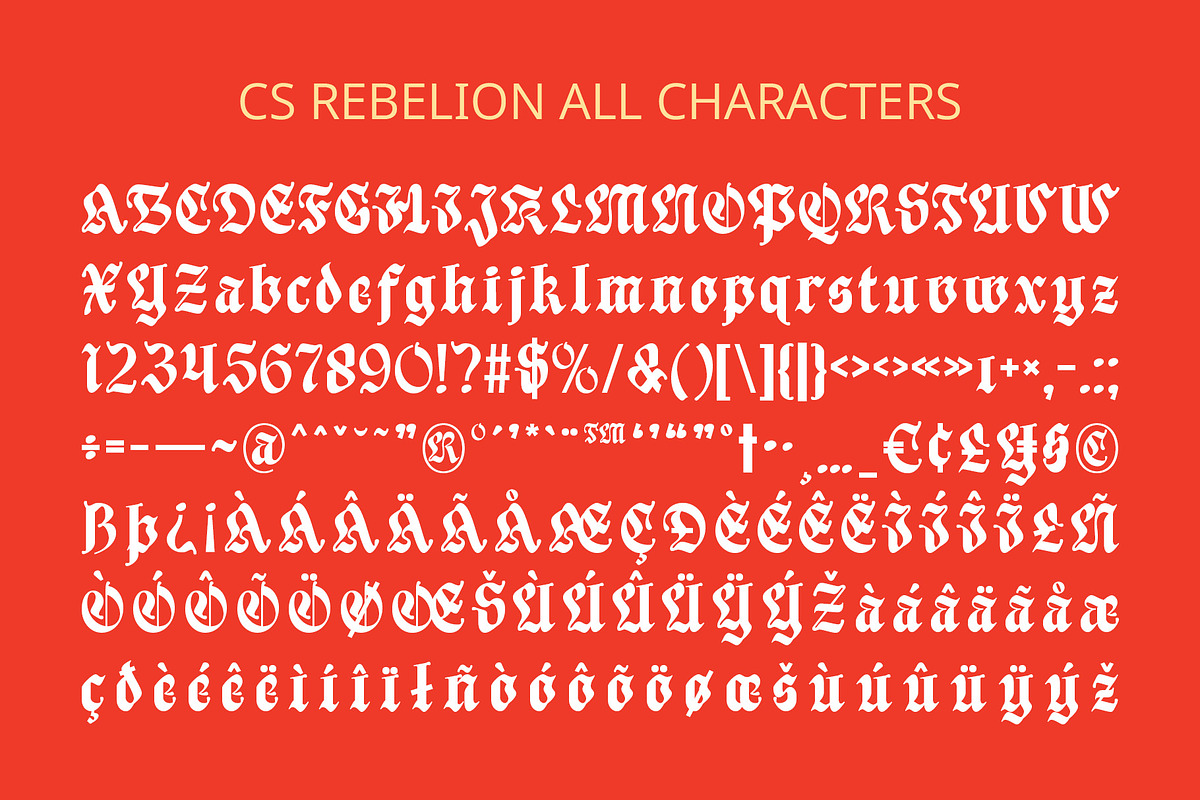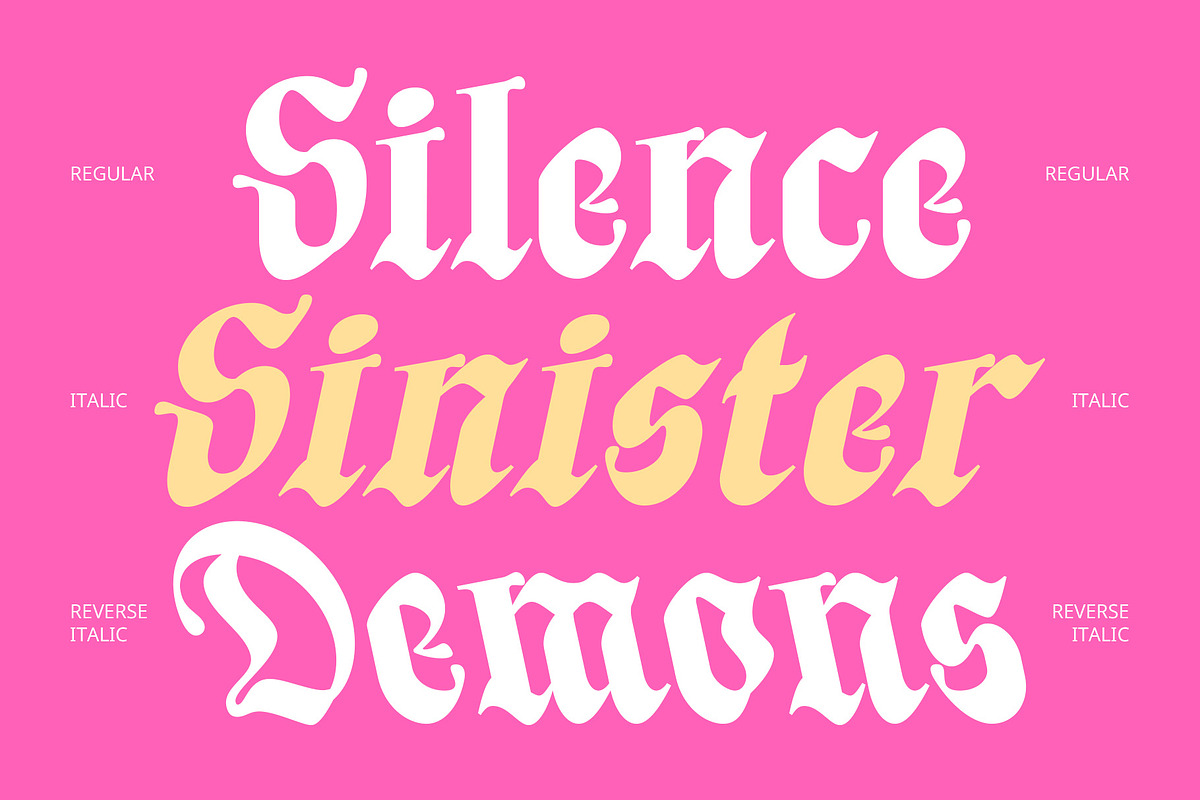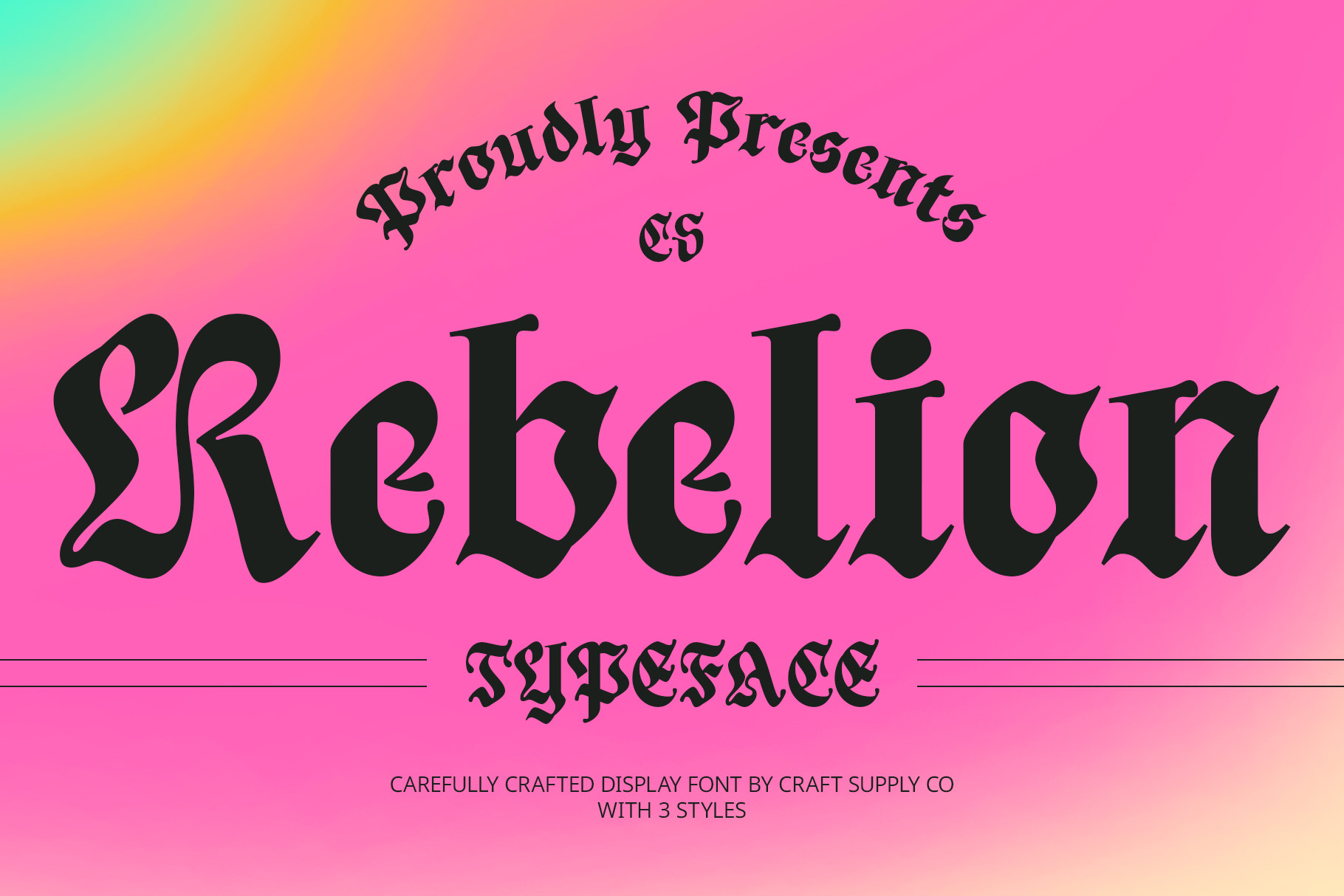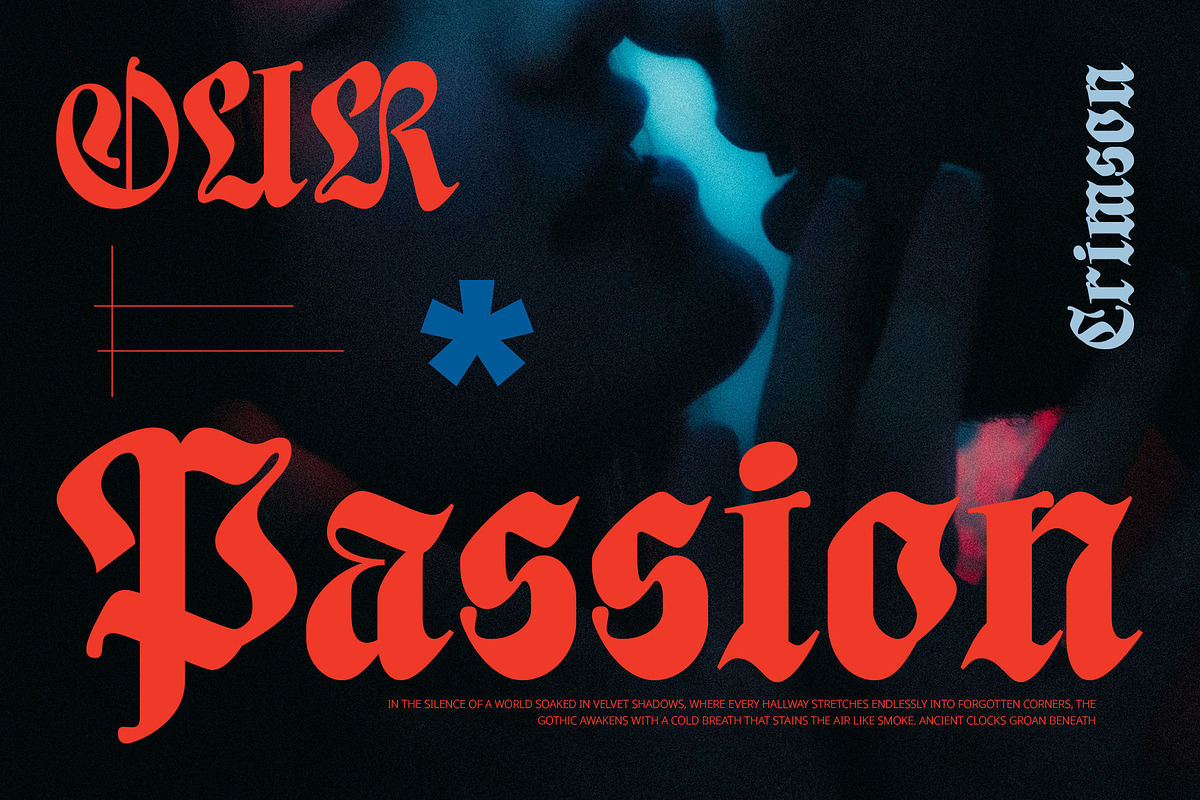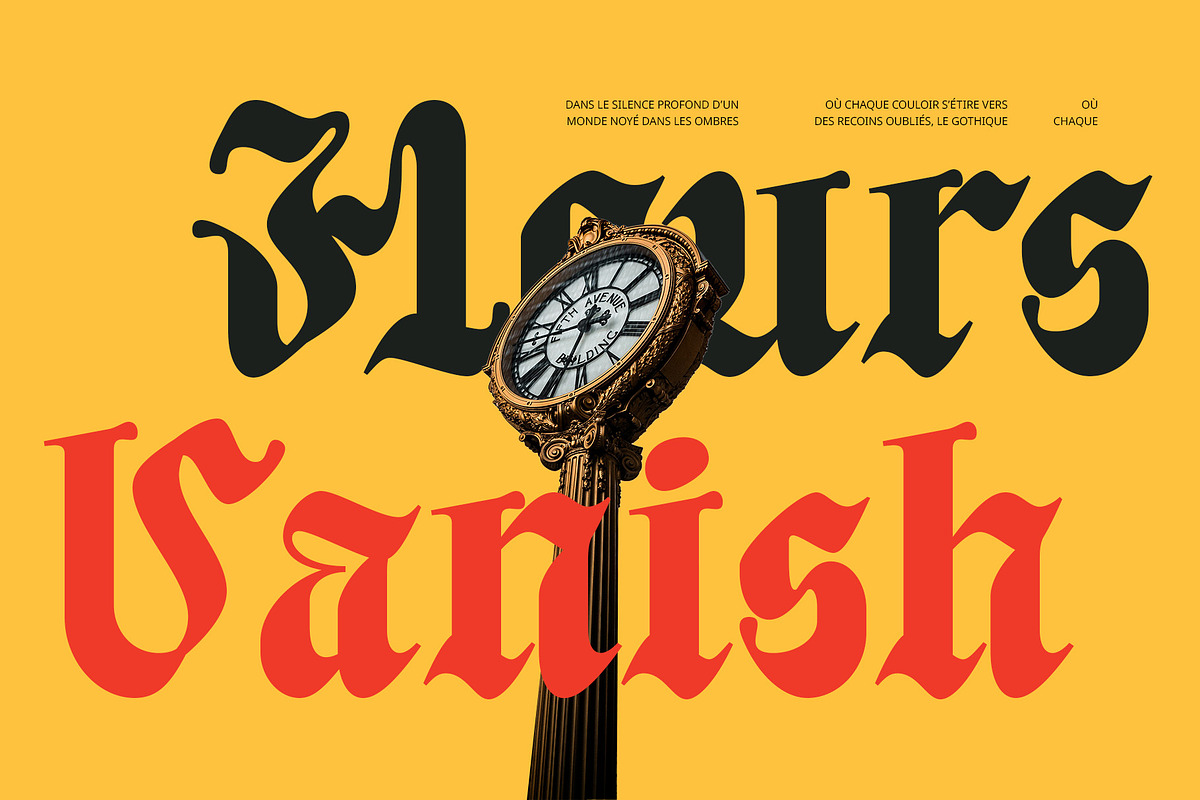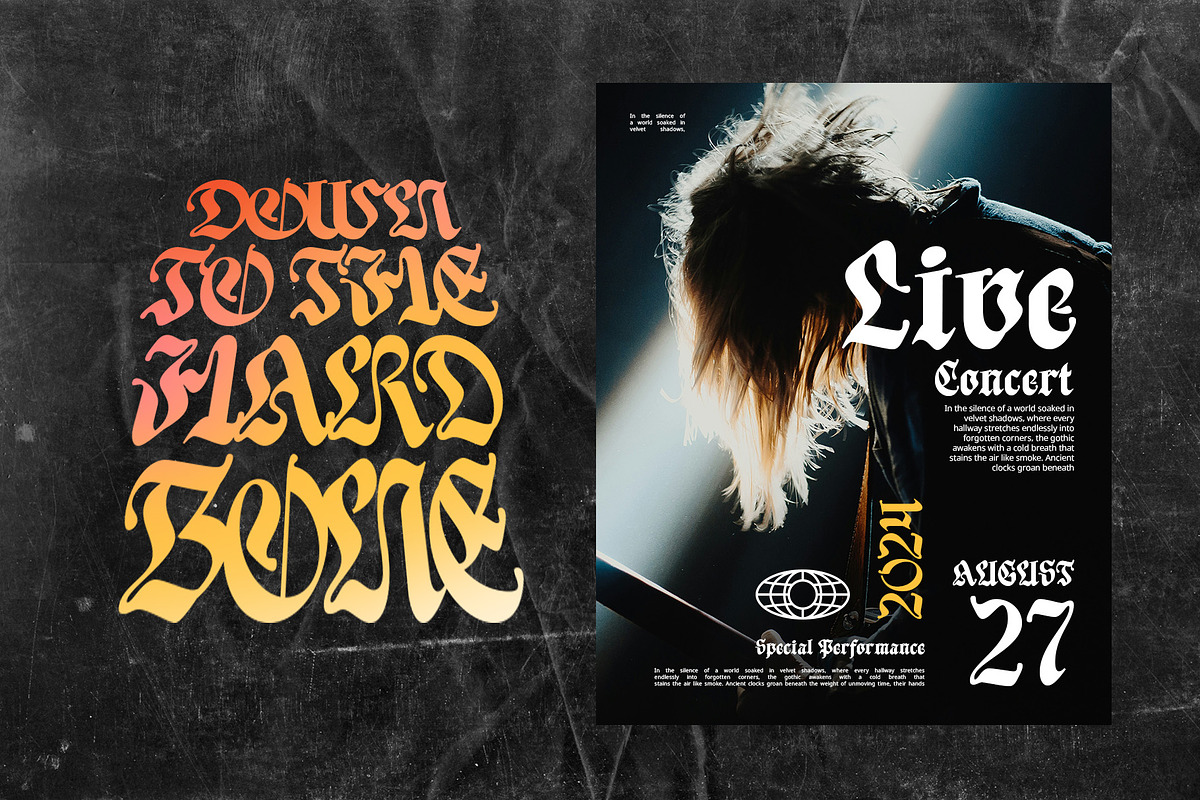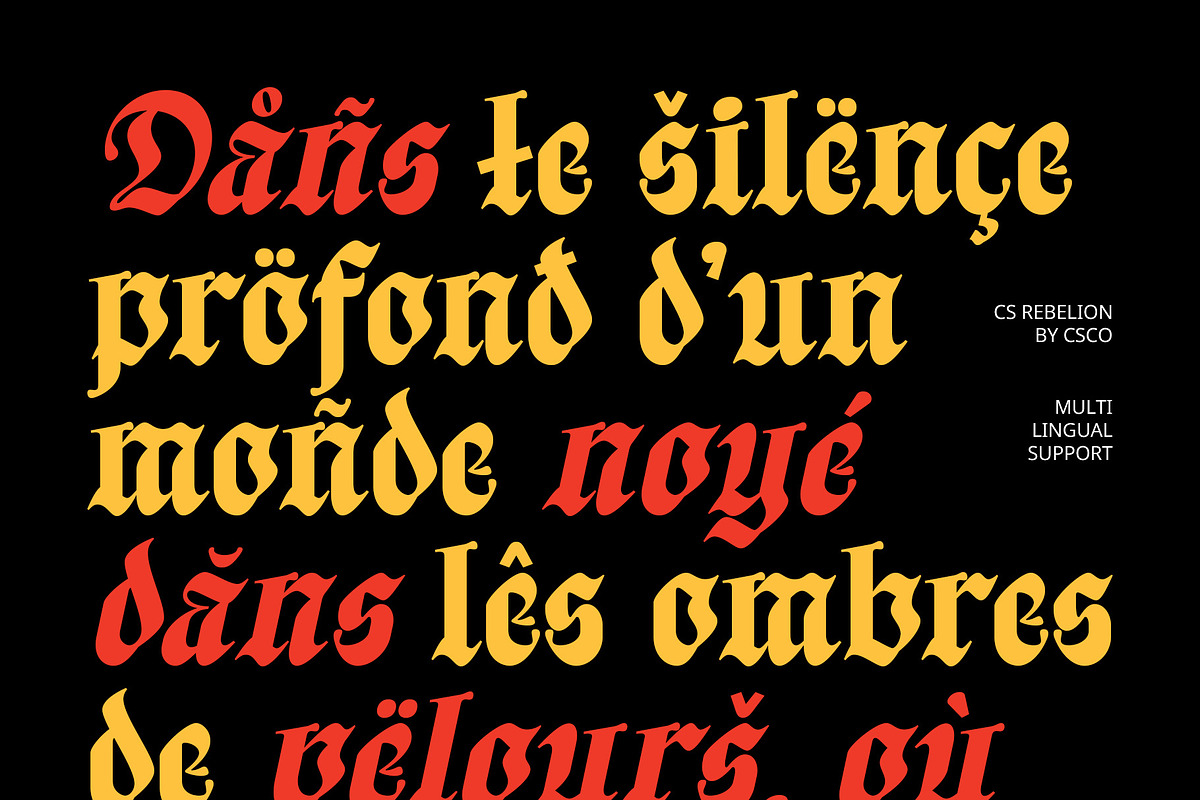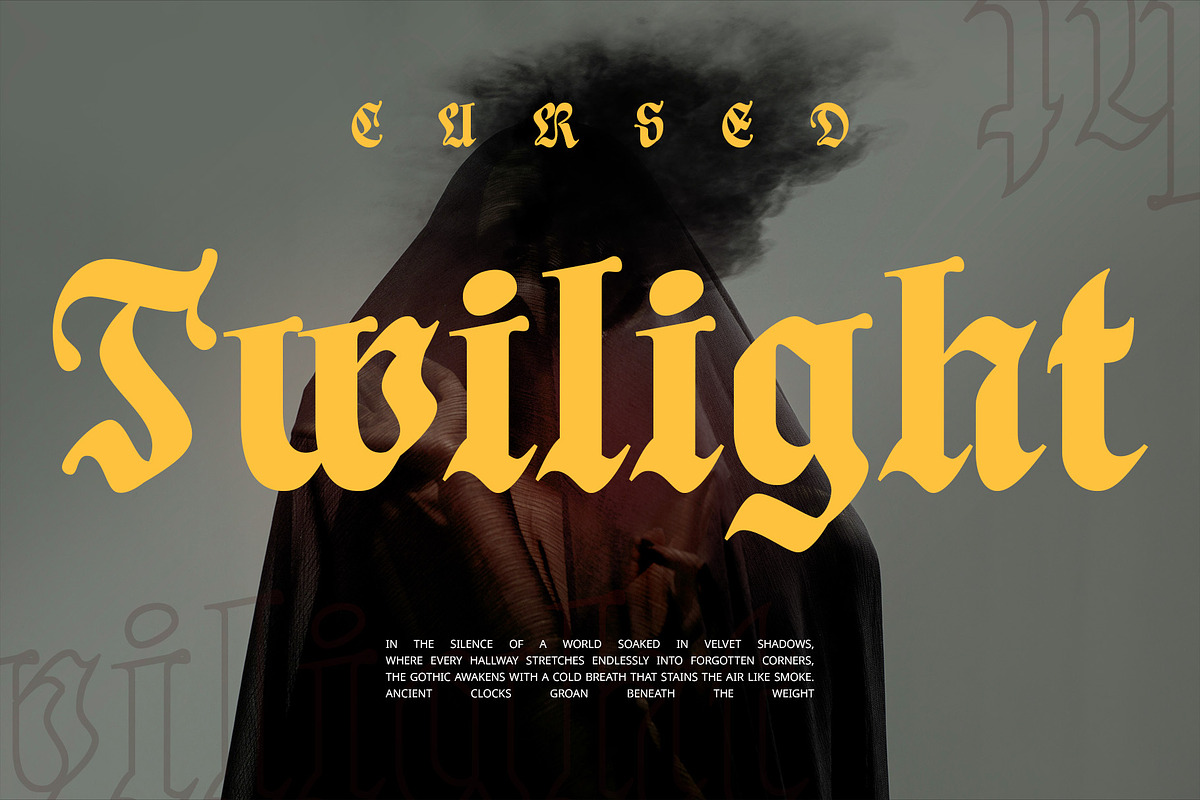
CS Rebelion – Blackletter Font
CS Rebelion – Blackletter Display Font
Bold, Historic, and Commanding CS Rebelion is a blackletter-style display font that exudes drama, tradition, and striking character. Inspired by medieval calligraphy and gothic script, its sharp, fractured strokes and ornate detailing capture a sense of historical power and visual authority.
Gothic Aesthetic Meets Modern Expression This font offers a unique blend of old-world charm and modern boldness. While rooted in classic blackletter style, CS Rebelion’s form feels contemporary and edgy, making it perfect for projects that demand a fierce and unforgettable presence. It’s ideal for band logos, gothic fashion branding, tattoo designs, and music posters—anywhere a strong and distinctive voice is required.
Decorative, Impactful, and Visually Dominant CS Rebelion isn’t subtle—it was made to stand out. Its dramatic angles and embellished strokes create an aesthetic that’s both decorative and intense, perfect for titles, headlines, merchandise designs, or event flyers. Whether you’re aiming to convey mystery, rebellion, or regality, this font adds a deep emotional impact to your visual message.
For Designs That Command Attention With its heritage-inspired structure and powerful silhouette, CS Rebelion is your go-to for designs seeking to make a strong, gothic, and artistic statement. It embodies cultural richness and visual power, offering designers a tool to infuse their work with meaning, texture, and intensity—a true celebration of blackletter tradition in a modern display format.
- CS Rebelion Regular
- CS Rebelion Italic
- CS Rebelion Reverse Italic